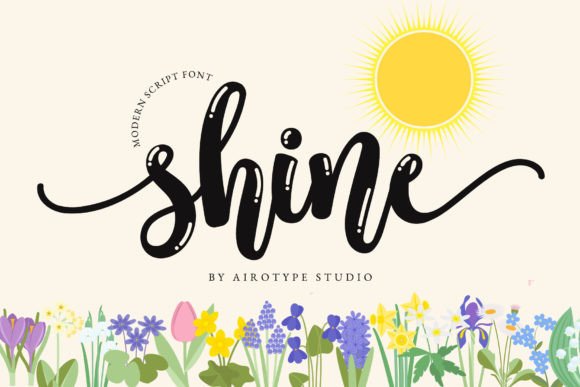
Introducing Shine Font, the ultimate script font for all your Christmas ornament needs! Created by airotype, this bouncy and bold calligraphy font exudes elegance and modernity, making it the perfect choice for a wide range of projects.
With its unique and eye-catching style, Shine Font is sure to add a touch of sophistication to any design. Whether you're working on wedding invitations, stickers, sublimation prints, cards, or even t-shirt designs, this font is guaranteed to elevate your creations to new heights.
Imagine the joy and excitement that will be sparked when your loved ones receive a beautifully crafted card or invitation adorned with Shine Font. Its elegant curves and flowing strokes create a sense of warmth and festivity, making it the ideal font for all your Christmas-themed projects.
But Shine Font doesn't stop at Christmas ornaments. Its versatility extends to farmhouse designs, birthday celebrations, and so much more. Let your creativity run wild as you explore the endless possibilities this font offers. From rustic farmhouse signs to trendy birthday party decorations, Shine Font will effortlessly enhance any project.
Not only does Shine Font captivate with its visually appealing aesthetics, but it also evokes a range of emotions. Its bold and bouncy nature exudes energy and enthusiasm, instantly grabbing the viewer's attention. The modern touch adds a sense of sophistication and style, making your designs stand out from the crowd.
Don't settle for ordinary when you can have extraordinary. Infuse your designs with the magic of Shine Font and watch as they come to life with elegance, charm, and a touch of holiday cheer. Spread the joy of beautiful design with Shine Font and make every project a masterpiece.